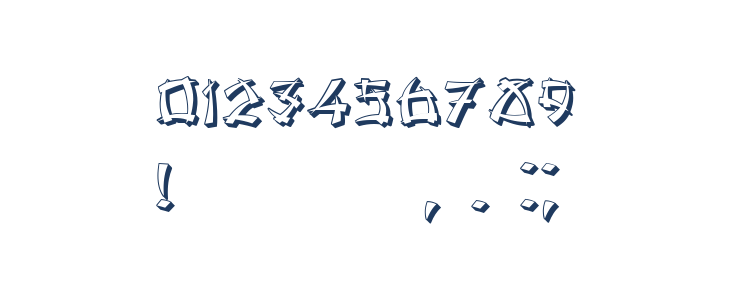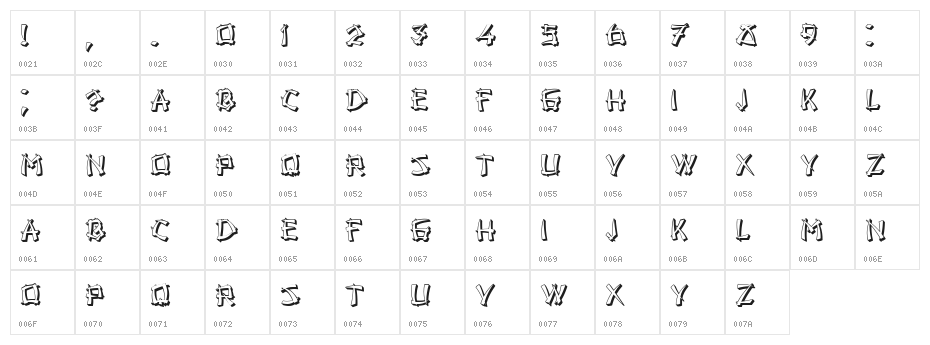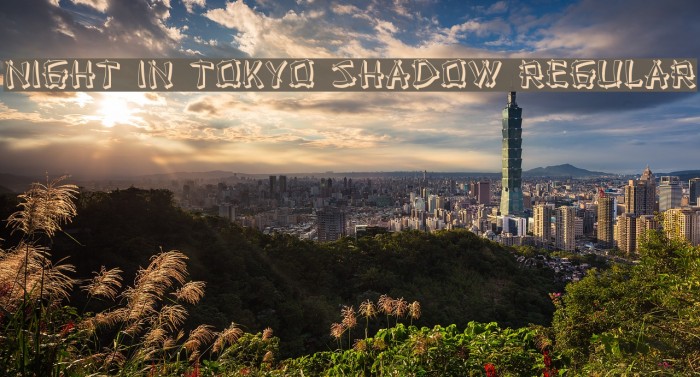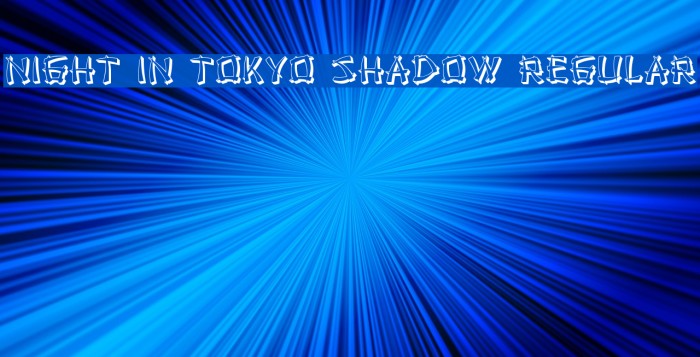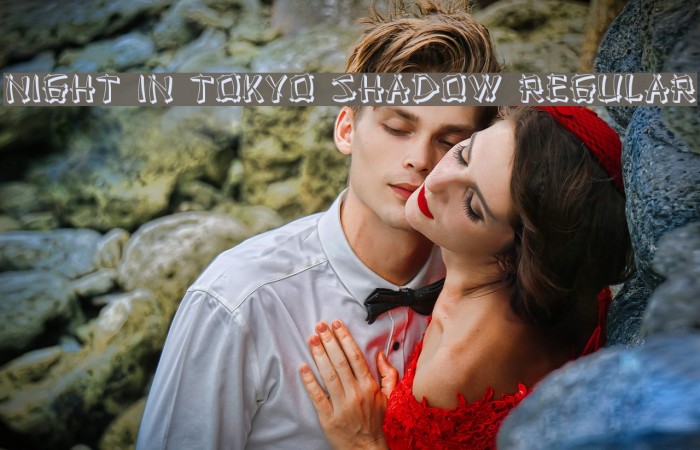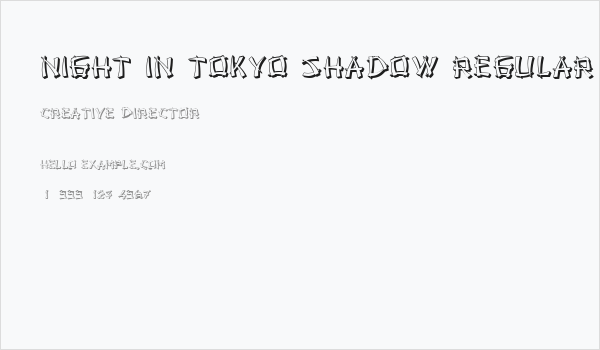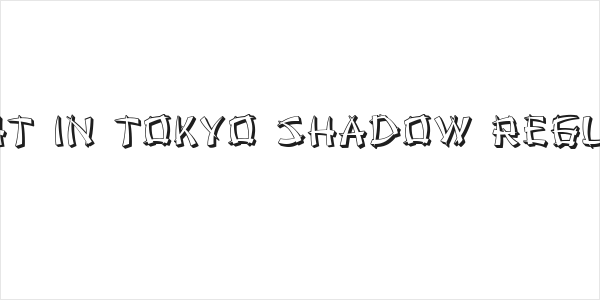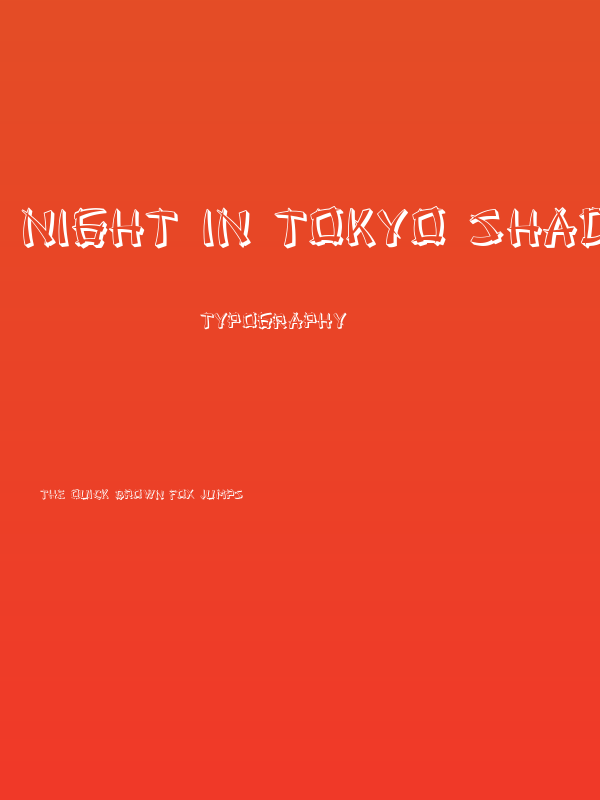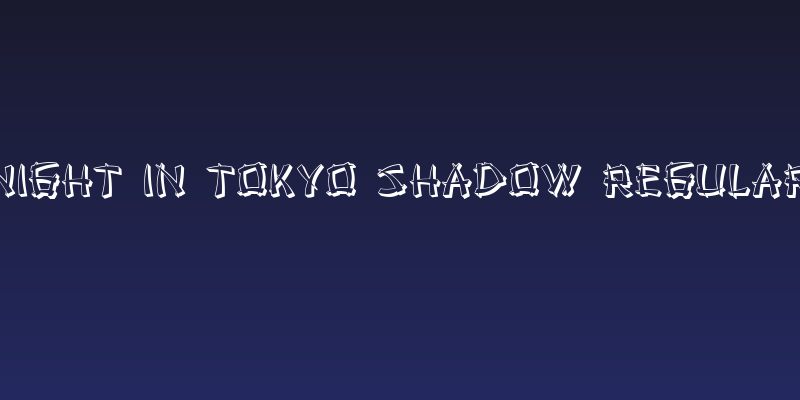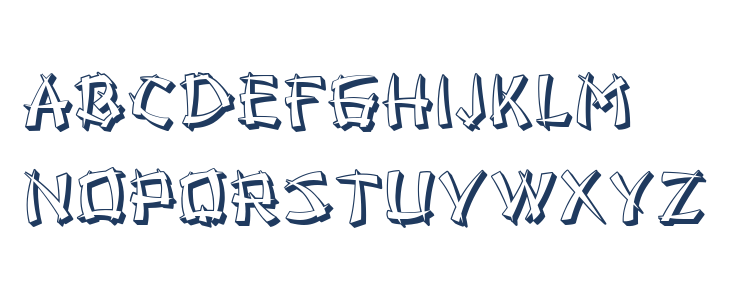
Night in Tokyo Shadow Regular Font
Night in Tokyo Shadow Regular Description
This font features a bold and dynamic style with a distinct shadow effect that gives it a three-dimensional appearance. The characters are designed with sharp, angular edges and a graffiti-like aesthetic, making it stand out with a modern, urban vibe. The uppercase and lowercase letters maintain a consistent style, while the numerals and special characters complement the overall look. The shadow adds depth and a sense of movement, making it ideal for eye-catching designs.
| Proposed Projects | Perfect for street art designs, urban-themed posters, music album covers, and edgy branding projects. |